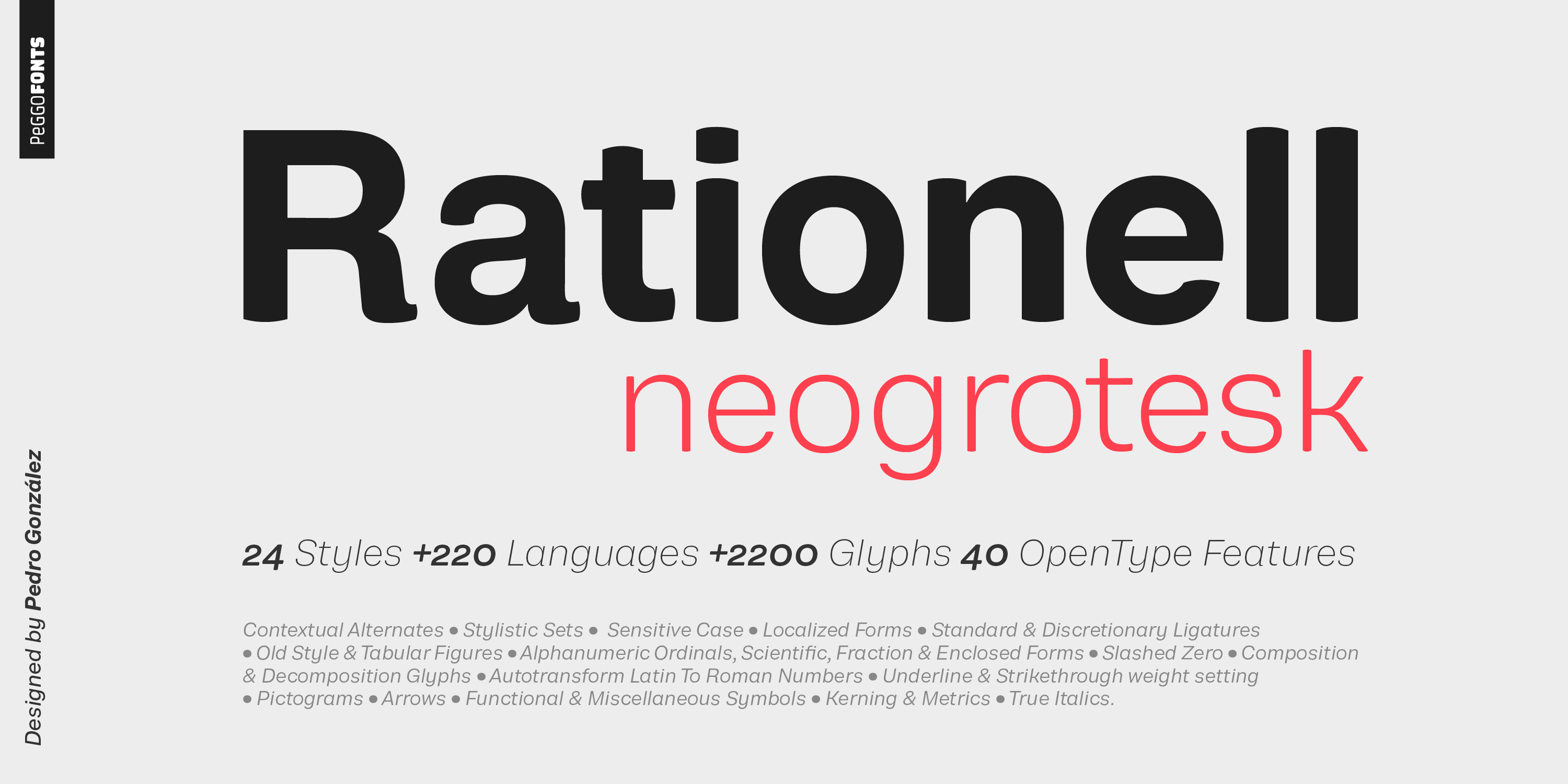
The Rationell Font is ideal for systematic design projects, logical brand identities, scientific publications, engineering documentation, mathematical textbooks, data visualization interfaces, research institutions, and analytical software applications. This methodical typeface excels in projects for consulting firms, research organizations, engineering companies, scientific journals, and businesses requiring clear, systematic communication that emphasizes logical thinking, analytical precision, and rational decision-making processes.
What makes the Rationell Font exciting is its perfect embodiment of systematic thinking and logical design principles with mathematical precision and analytical clarity. The font features meticulously structured letterforms with consistent geometric relationships and rational proportions that reflect evidence-based design methodology. Its systematic character and intellectual rigor make it ideal for organizations seeking to convey expertise, analytical thinking, and methodical approaches to problem-solving. The font's logical architecture and scientific precision create immediate credibility in technical and academic contexts.
The Rationell Font family includes systematically-designed variations: Light, Regular, Medium, Bold, and Heavy weights, each constructed with mathematical precision and logical consistency. Each weight maintains perfect structural relationships while offering different hierarchical levels for complex analytical layouts and scientific documentation. The family also features mathematical symbols, scientific notation, and systematic ornaments essential for technical and research applications.
Whether you're developing analytical brand identities, creating scientific marketing materials, or designing systematic promotional campaigns, the Rationell Font Free Download provides the ultimate solution for projects requiring logical, methodical typography. This exceptional typeface brings genuine analytical thinking to professional design work, making it an indispensable resource for designers working with scientific organizations, engineering firms, and institutions emphasizing rational, evidence-based approaches.